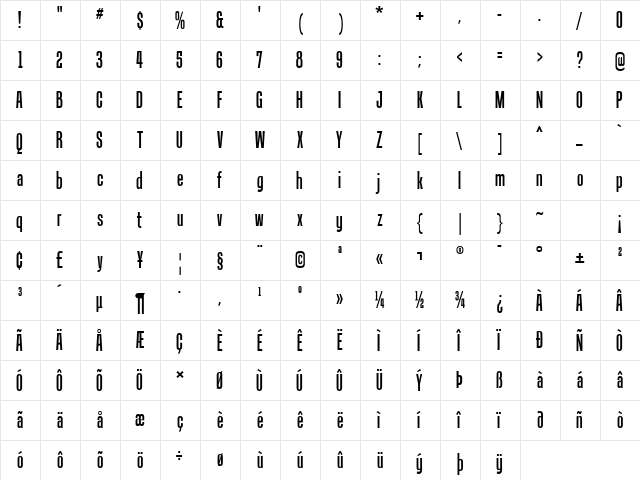
Tandelle Regular
Design Context for Tandelle Typeface
Tandelle is a composed and adaptable typeface that performs quietly and consistently across a wide range of design contexts.